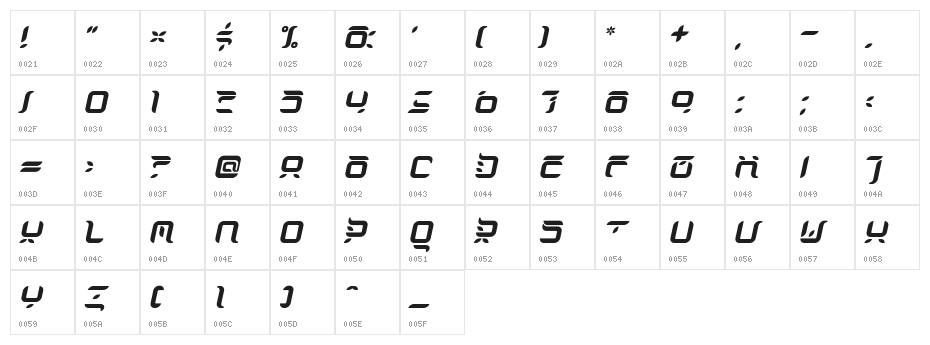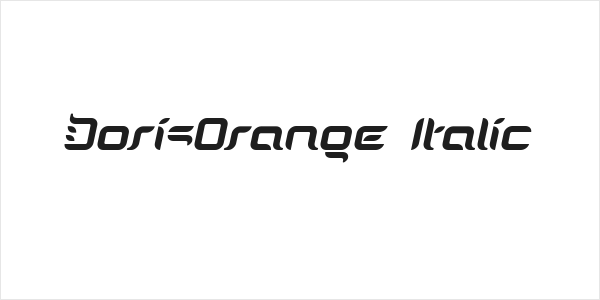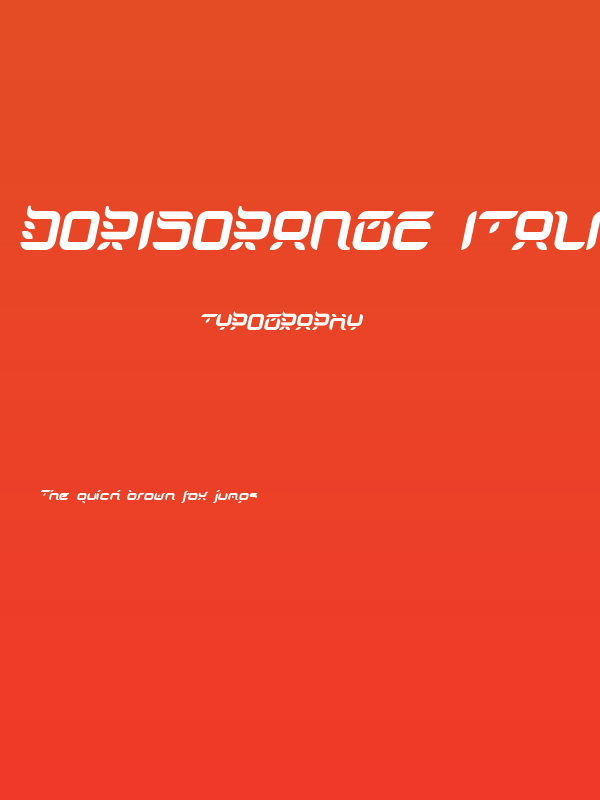
DorisOrange Italic Font
DorisOrange Italic Description
This font features a futuristic and dynamic design, characterized by its bold, italicized letterforms. The characters are uniquely crafted with a combination of sharp angles and smooth curves, giving it a sleek and modern appearance. The strokes are thick and consistent, providing a strong visual impact. The font includes a full set of uppercase and lowercase letters, numerals, and a variety of special characters. Its distinctive style makes it stand out, ideal for projects that require a contemporary and edgy look.
| Proposed Projects | Ideal for sci-fi themed designs, video game graphics, modern branding, and technology-related projects. |